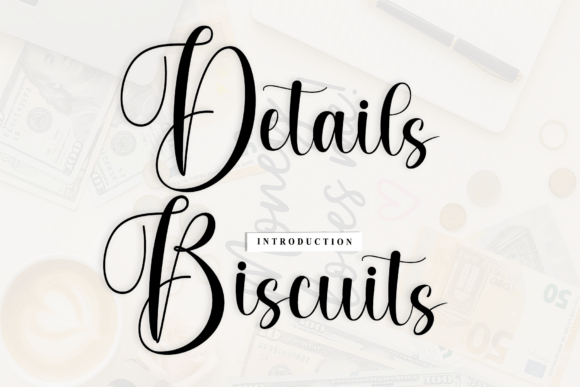
Introducing Details Biscuits Font: Elevate Your Brand with Sophistication and Warmth
In the world of typography, a font can make or break the visual identity of a brand. For designers and crafters seeking to infuse their projects with a touch of elegance and artisanal charm, Details Biscuits font is an exceptional choice. This sophisticated and rhythmic script font strikes the perfect balance between a calligraphic style and a warm, organic aesthetic, making it ideal for a wide range of applications.
The Distinctive Characteristics of Details Biscuits Font
Details Biscuits font boasts several distinctive features that set it apart from other typefaces. Its high-contrast visual rhythm, characterized by thick, grounded downstrokes and delicate hairline connectors, creates a sense of dynamic movement and fluidity. The font’s defining characteristic, however, is the use of sweeping, looping ascenders that give it a customized, artisanal feel. These elegant loops evoke a sense of handcrafted artistry, making Details Biscuits font perfect for brands seeking to convey a sense of uniqueness and exclusivity.
Ideal Applications for Details Biscuits Font
Given its sophisticated and artisanal nature, Details Biscuits font is a premier choice for various applications, including:
- Artisanal Food Branding: Add a touch of elegance and sophistication to your food brand’s packaging and marketing materials.
- Boutique Product Packaging: Elevate your product’s visual identity with a font that exudes luxury and refinement.
- Upscale Lifestyle Marketing: Use Details Biscuits font to create high-end marketing materials that resonate with discerning audiences.
- Creative Editorial Titles: Add a touch of artisanal charm to your editorial content with a font that commands attention and respect.
Why Choose Details Biscuits Font?
With so many fonts available, why choose Details Biscuits? Here are just a few reasons why designers and crafters are drawn to this exceptional typeface:
- Unique Blend of Style and Warmth: Details Biscuits font seamlessly blends calligraphic style with a warm, organic aesthetic, creating a truly distinctive visual identity.
- High-Contrast Visual Rhythm: The font’s high-contrast visual rhythm adds a level of sophistication and elegance to any project.
- Artisanal Charm: The sweeping, looping ascenders and delicate hairline connectors evoke a sense of handcrafted artistry, making Details Biscuits font perfect for brands seeking to convey a sense of uniqueness.
Tips for Using Details Biscuits Font Effectively
To get the most out of Details Biscuits font, consider the following tips:
- Use it as a Headline Font: Details Biscuits font is perfect for headlines and titles, where its elegant loops and high-contrast visual rhythm can shine.
- Pair it with a Simple Body Font: Balance the sophistication of Details Biscuits font with a simple, clean body font to create visual harmony.
- Experiment with Colors and Textures: Add an extra layer of depth and interest to your design by experimenting with different colors and textures.
Details Biscuits font is an exceptional choice for designers and crafters seeking to elevate their projects with a touch of sophistication and artisanal charm. Its unique blend of calligraphic style and warm, organic aesthetic makes it perfect for a wide range of applications, from artisanal food branding to upscale lifestyle marketing. With its high-contrast visual rhythm, sweeping loops, and delicate hairline connectors, Details Biscuits font is sure to make a lasting impression.